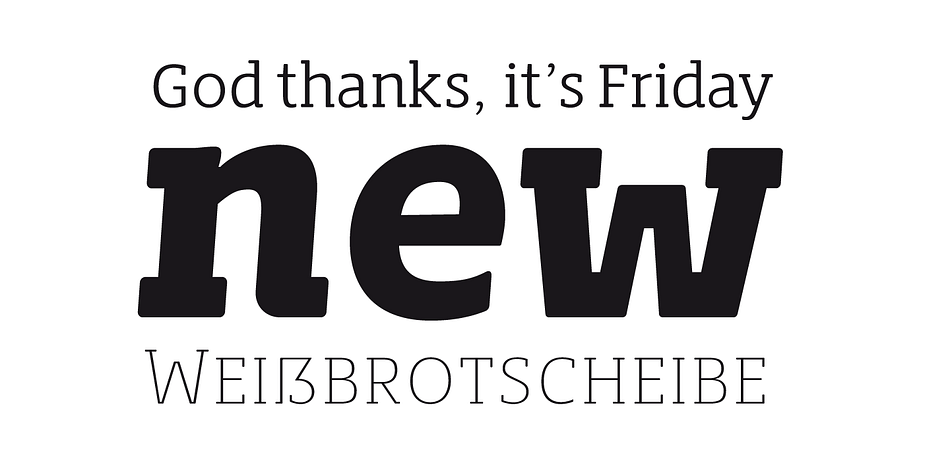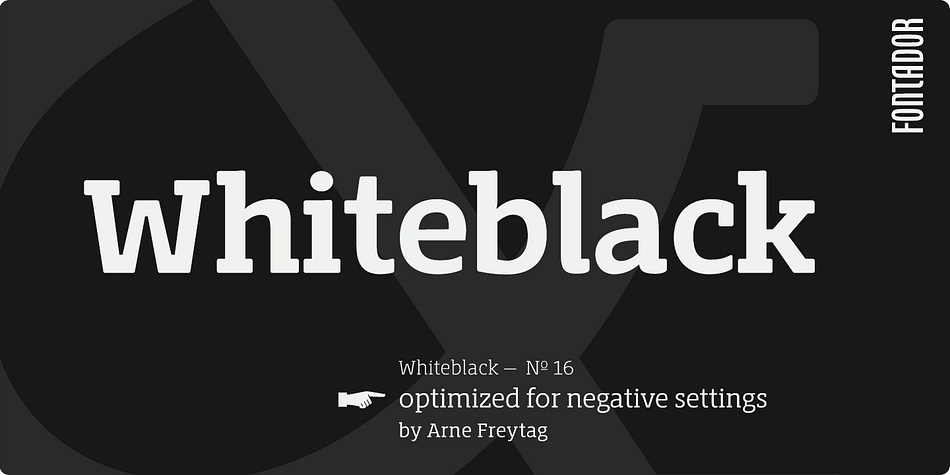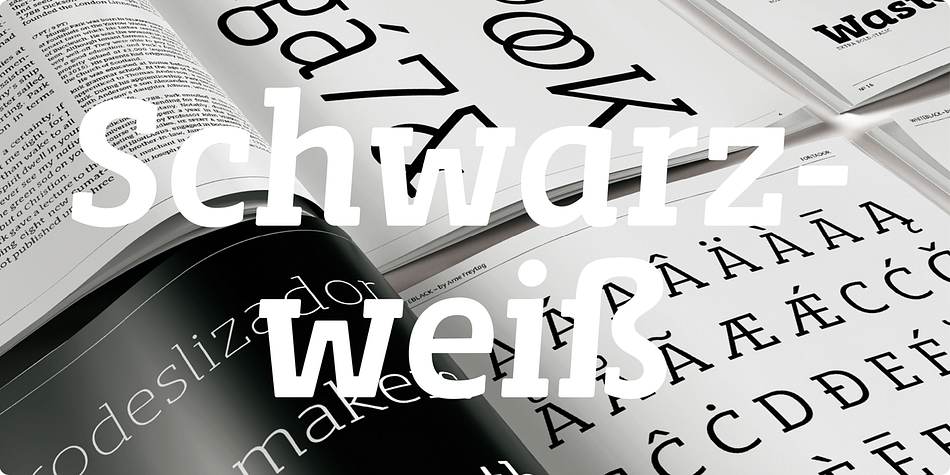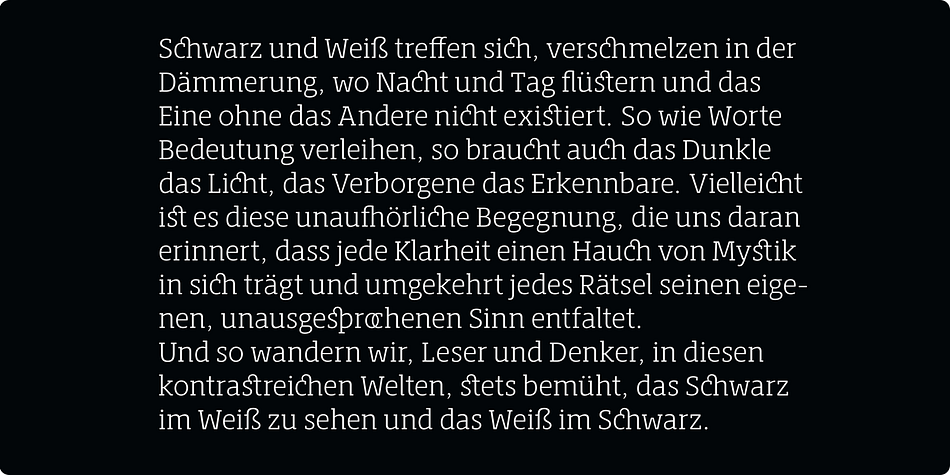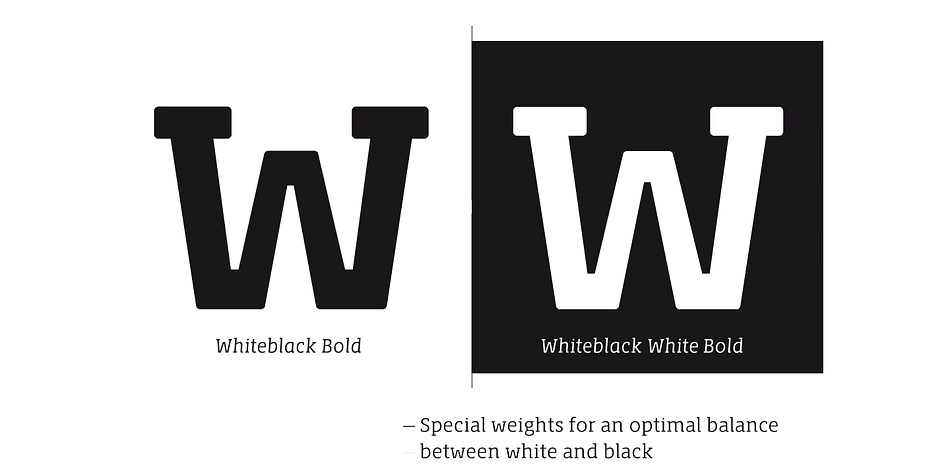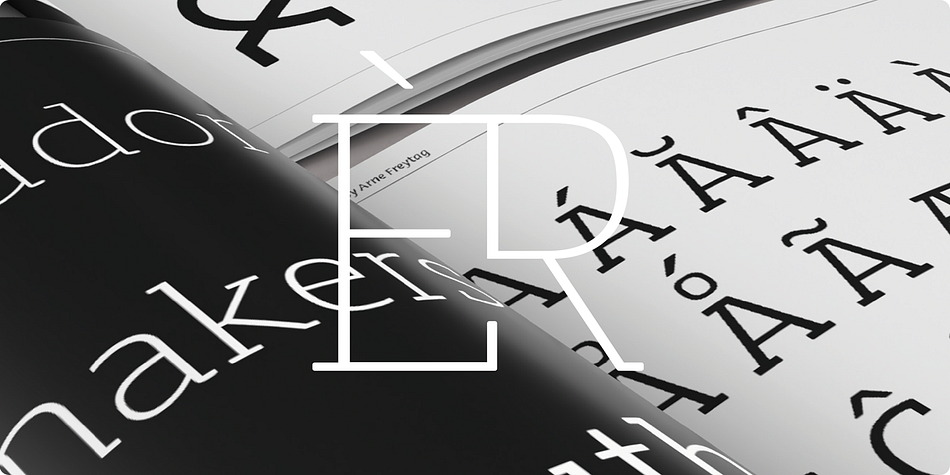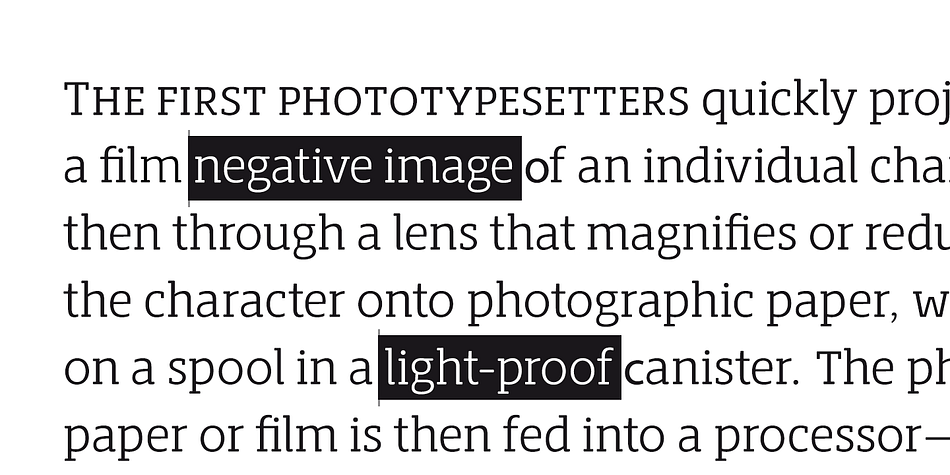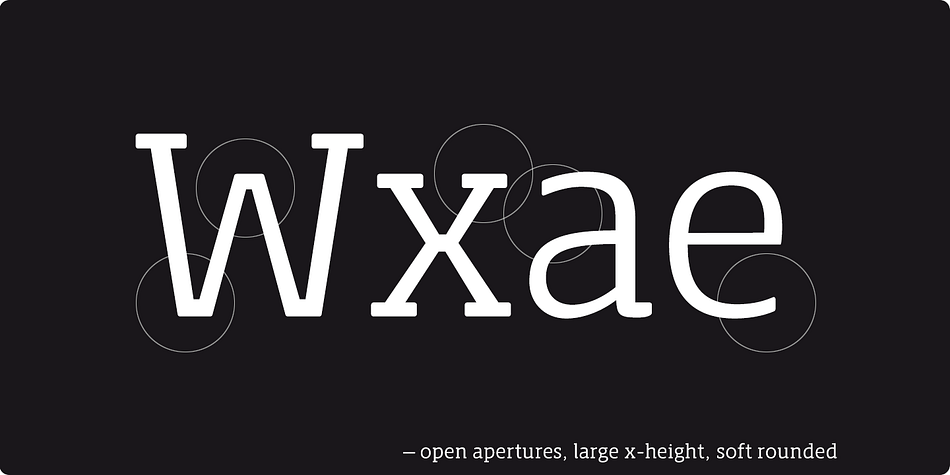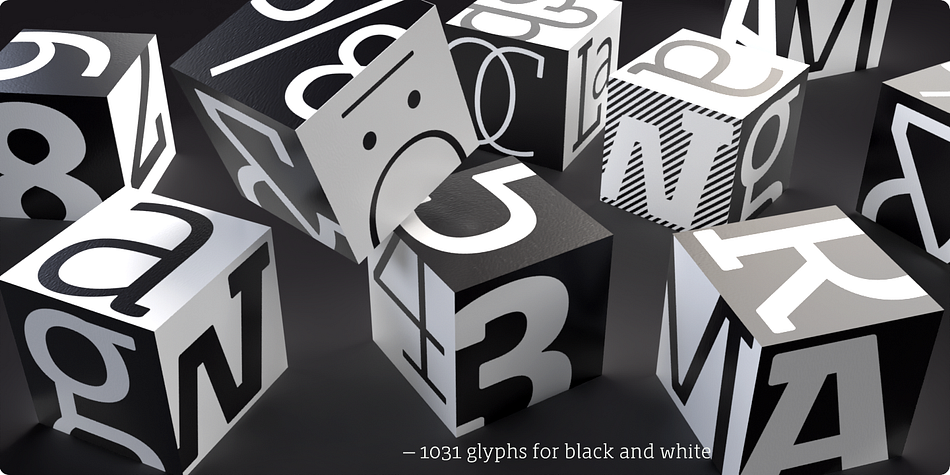
Designed by Arne Freytag, Whiteblack is a slab serif font family. This typeface has twenty-four styles and was published by Fontador.
Whiteblack is a slab serif with a soft touch, designed for contemporary typography and comes up with 6 weights for positive and negative settings plus handslanted obliques.
In dark backgrounds, especially for signage and on screen, negative settings glow and appear heavier than positive settings. To avoid the „glow-effect“ the typeface contains special weights for an optimal balance between white and black.
A large x-height and open apertures not only creates space for smaller sizes, but also lends Whiteblack a solid balanced and generous character for print and screen.
Many OpenType features including 324 ligatures, contextuel alternates, and stylistic set built into all cuts. The font contains 1.076 glyphs with a wide range of flexibility for Latin language support for every typographical needs.
Whiteblack brings elegance and a certain warmth wherever a contemporary slab serif typeface is needed, special for signage, brands, magazines and corporate design.